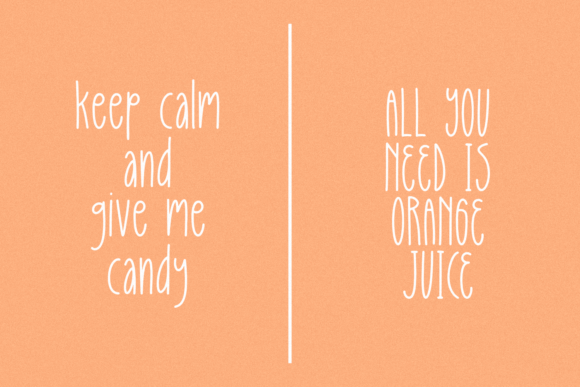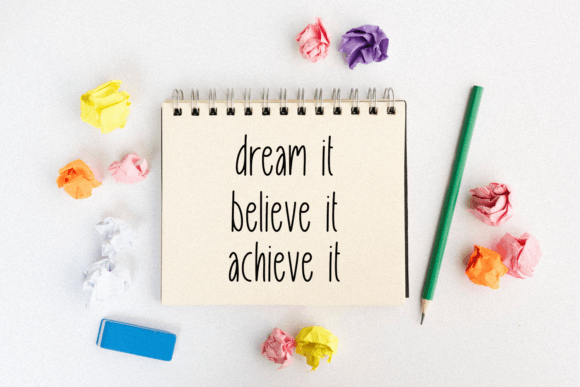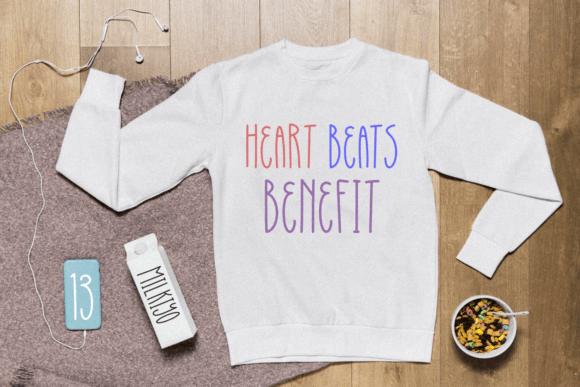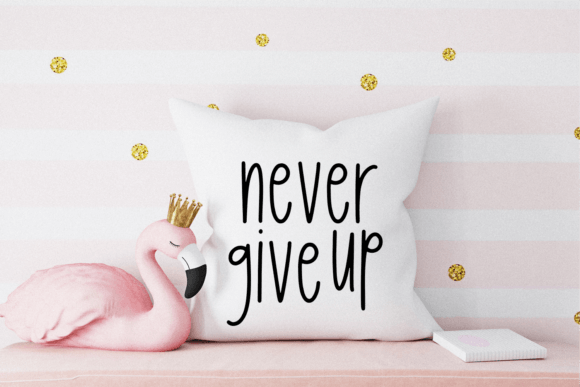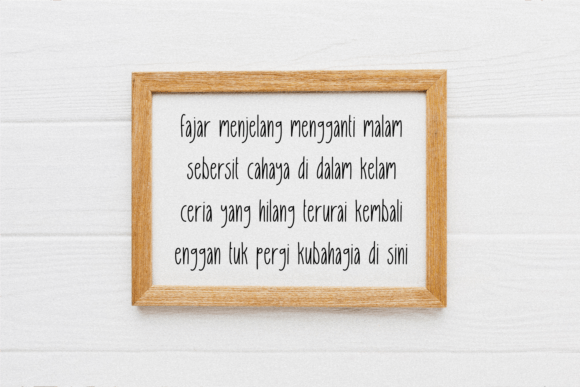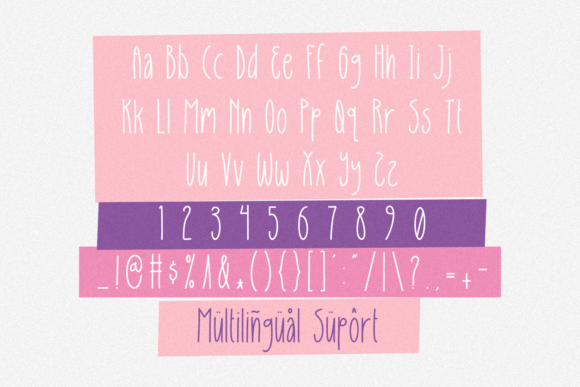
Introduction to Slime Candy Font
Remember that moment when you finally land the perfect design idea? The excitement, the thrill, and the rush of creativity? It’s moments like those that make all the late nights and early mornings worth it. But, have you ever felt like your design is missing that extra oomph to take it to the next level? That’s where the Slime Candy Font comes in – a game-changing design resource that can elevate your creative project from ordinary to extraordinary.
With its unique, handwritten script style, the Slime Candy Font is perfect for designers looking to add a touch of classic charm to their work. Whether you’re working on a wedding project, a fashion campaign, or a social media post, this high-quality font is sure to impress. And the best part? It’s available for free download, complete with a transparent background, making it easy to incorporate into your designs.
Key Features of Slime Candy Font
- Unique, hand-drawn design that adds a playful touch to any creative project
- Perfect for use in digital art, graphic design, and other creative projects that require a fun and colorful font
- Includes a wide range of characters, including uppercase and lowercase letters, numbers, and punctuation marks
I recently stumbled upon the Slime Candy Font, and I must say it’s a unique addition to any design project. As a designer, I appreciate high-quality design resources that can help bring a creative vision to life. This font fits the bill, with its fun and playful vibe that’s perfect for kids’ projects or any design that needs a touch of whimsy.
- ✨ The high-quality design ensures that the font looks great even at larger sizes.
- ⚠️ The font may not be suitable for formal or professional projects, given its playful nature.
- ⚠️ Some users may find the font too bold or overwhelming, depending on the design context.
Overall, I’m impressed with the Slime Candy Font, and I can see it being a valuable asset for designers working on creative projects that require a fun and playful touch.
The Slime Candy Font is a unique and playful design resource ideal for creative projects that require a fun and eye-catching touch. This free download is perfect for designers looking for a high-quality font to add to their designs.
To get the most out of the Slime Candy Font, use it in combination with bright and bold colors to create a visually appealing design. Experiment with different font sizes and styles to add depth and interest to your designs.
The Slime Candy Font is ideal for use in:
- Children’s party invitations and decorations
- Food and beverage branding
- Toy and game packaging
- Social media graphics and advertisements